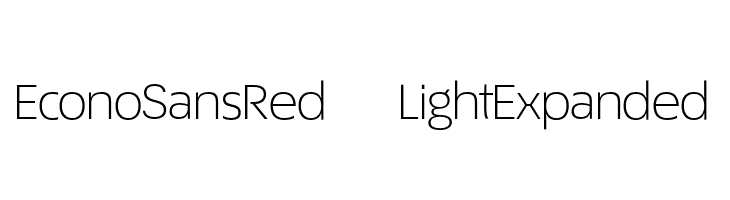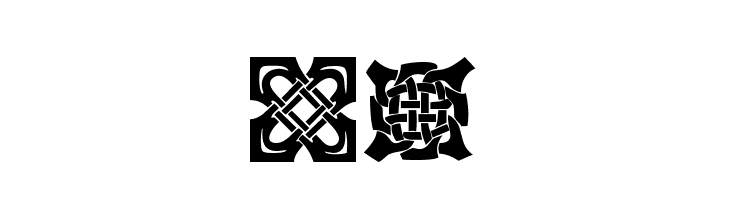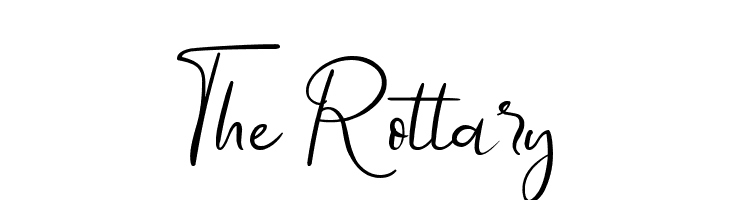
A modern, light, and expanded sans-serif font with a clean and geometric design.
A playful, pattern-filled decorative font with a hand-drawn style.
A bold, futuristic font with smooth, rounded edges and a geometric structure.
A flowing, cursive font with elegant, sweeping strokes and a handwritten appearance.
A dynamic handwritten font with fluid, expressive strokes.
A playful, bold font with rounded edges and a whimsical style.
A dynamic and fluid handwritten script with elegant, flowing strokes.
A playful and casual handwritten font with smooth, connected strokes.
Elegant cursive script with a handwritten style.
An elegant script font with flowing, cursive letterforms and a sophisticated style.